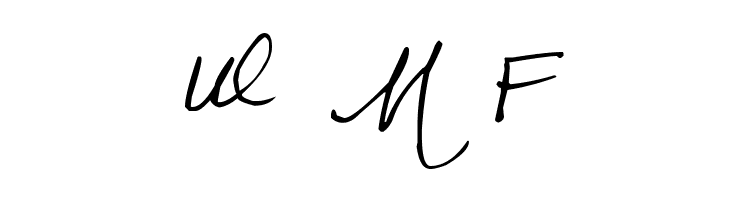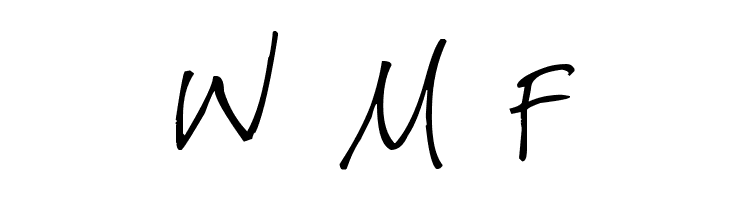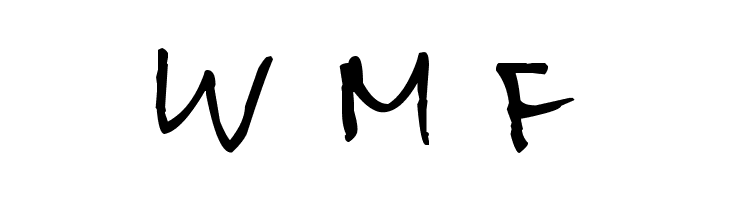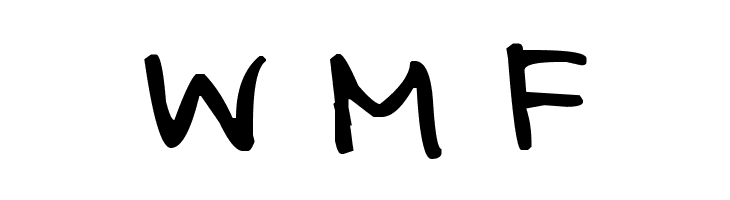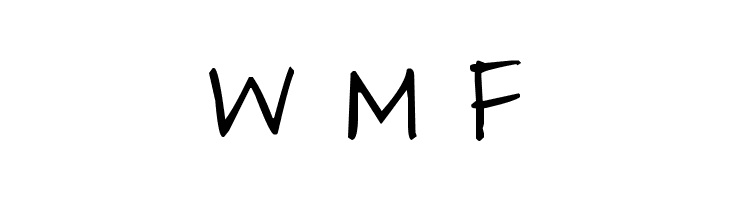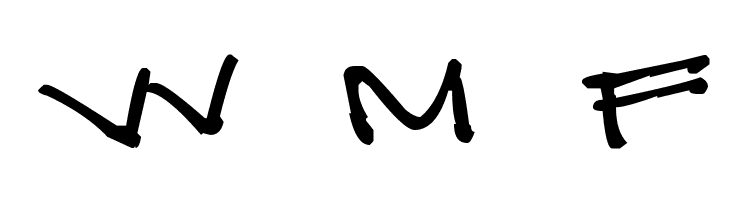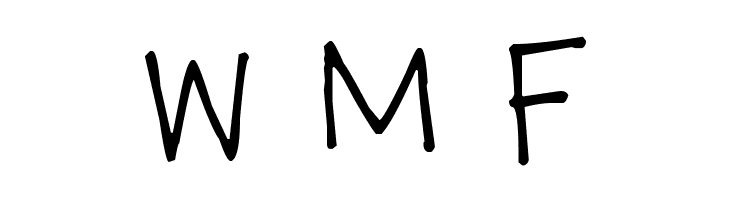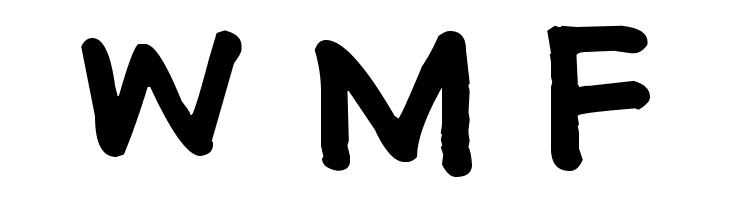
A lively, handwritten script font with elegant, flowing connections.
A casual, handwritten font with bold, dynamic strokes and a playful style.
A playful, whimsical handwritten font with thin, flowing lines.
A lively, handwritten-style font with a casual and energetic feel.
A playful, casual handwritten font with a personal touch.
A playful, bold handwritten font with a casual and energetic style.
A playful, casual handwritten font with a loose, informal style.
A playful, handwritten font with a casual and dynamic style.
A playful, casual handwritten font with a friendly and informal style.
A bold, playful handwritten font with a casual and friendly style.